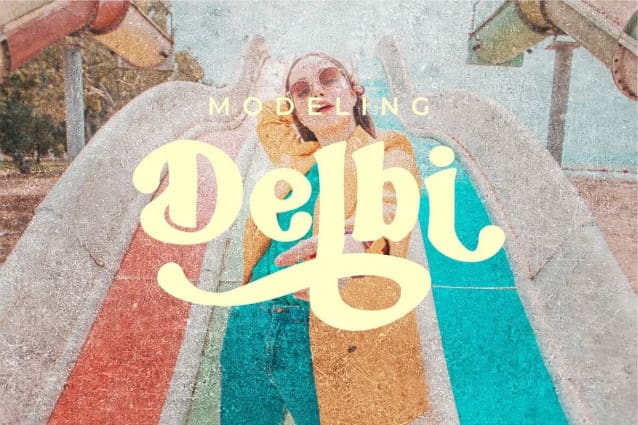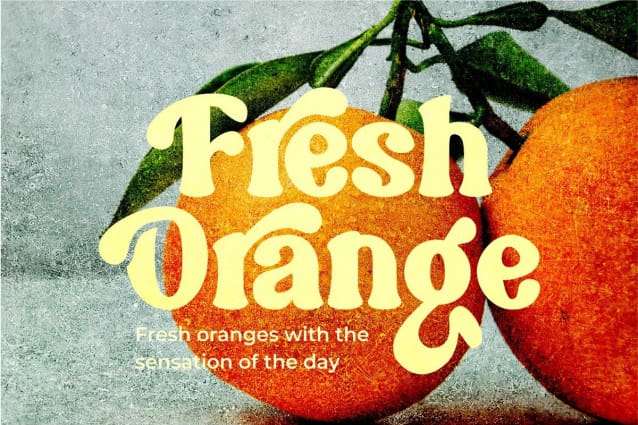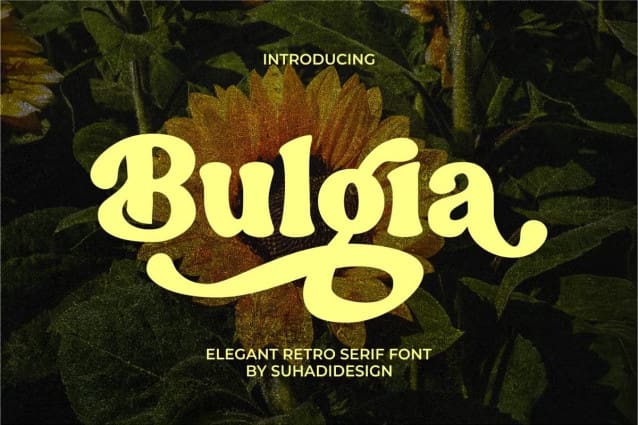
Bulgia Retro Font
Bulgia Retro Font is a serif font with very beautiful and popular alternates, comes with a modern style hoping to become a market favorite. We keep this font looking elegant, classy, easy to read, stylish, attractive and easy to use. Bulgia Retro Font is a great choice for magazines, wedding invitations, retro designs, newspapers, books, brand names, brand, branding, quotes, album covers, and other projects. The Bulgia font is here to take the quality of your designs to a higher level.